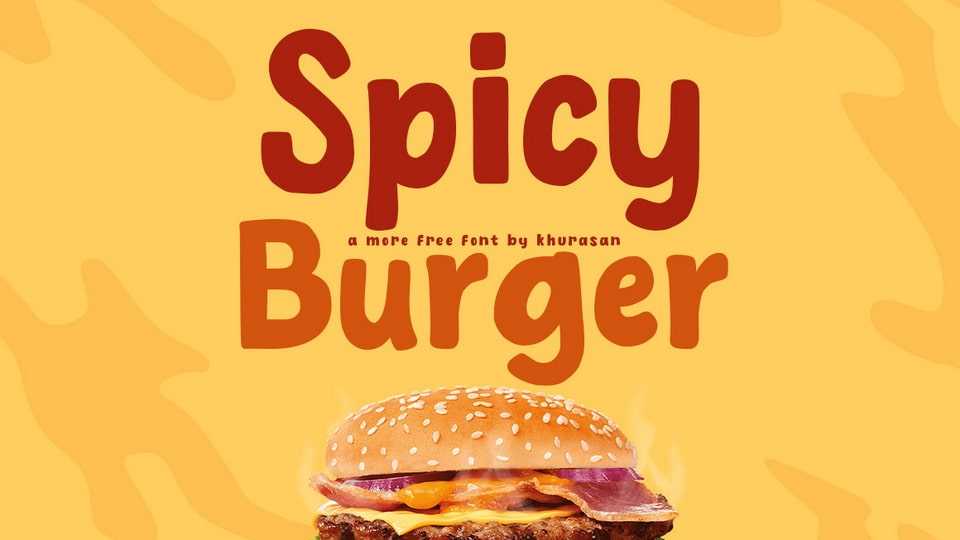
Download Spicy Burger font, a hand-lettered comic font that brings joy to every word. Its expressive letterforms exude a sense of lightheartedness and fun and capture the spirit of playful comics.